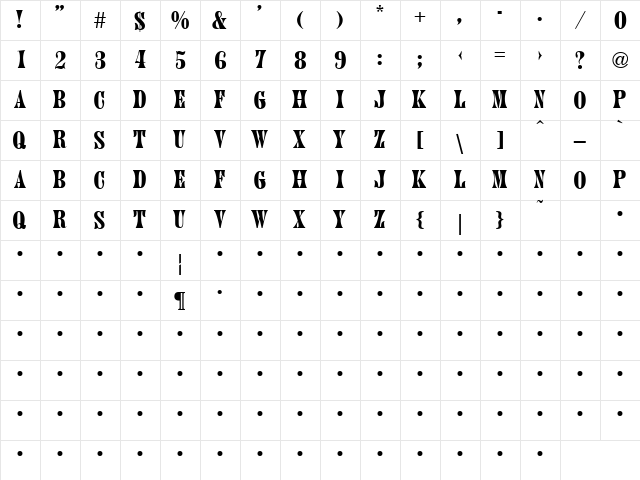
Complete QTJupiter Regular glyph index. Displaying only characters natively supported by QTJupiter Regular font.
QTJupiter is a composed and adaptable typeface that performs quietly and consistently across a wide range of design contexts.